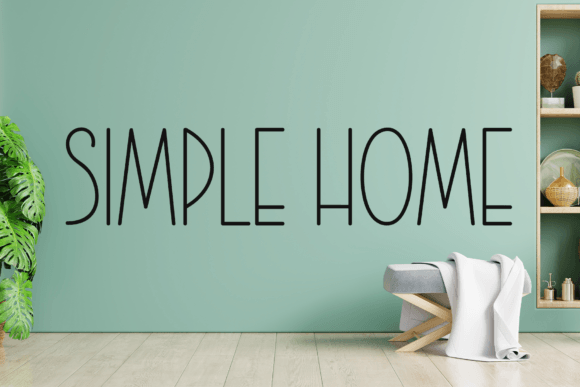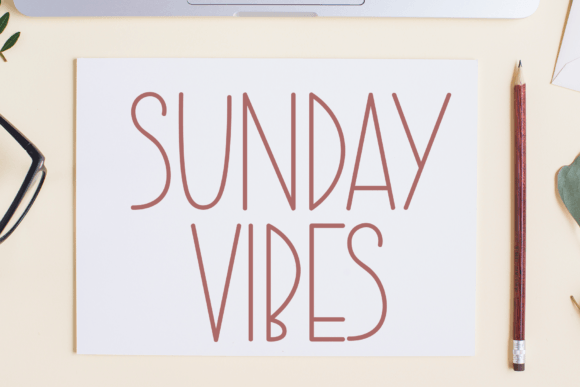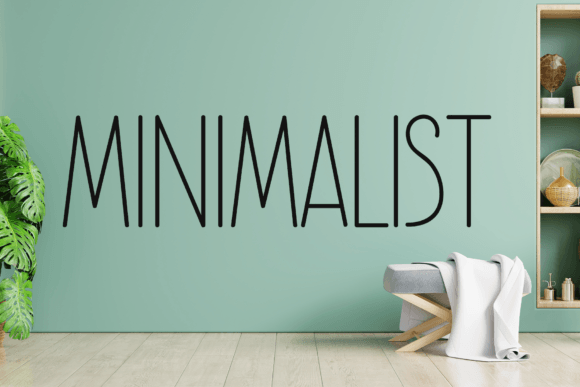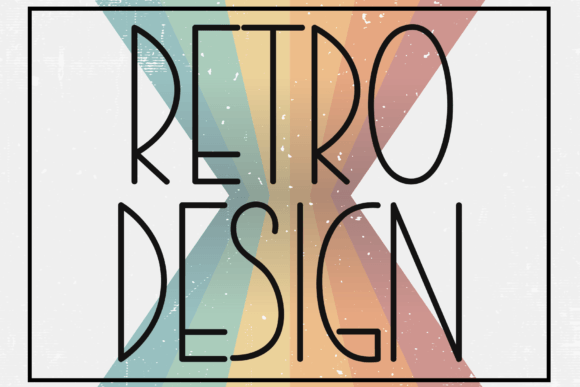
Introduction to Retro Design Font
Retro Design is a stylish handwritten font with a contemporary atmosphere and impeccable form, inspired by a timeless classic calligraphy.
Balanced and varied, this font was designed to enhance the beauty of your projects .